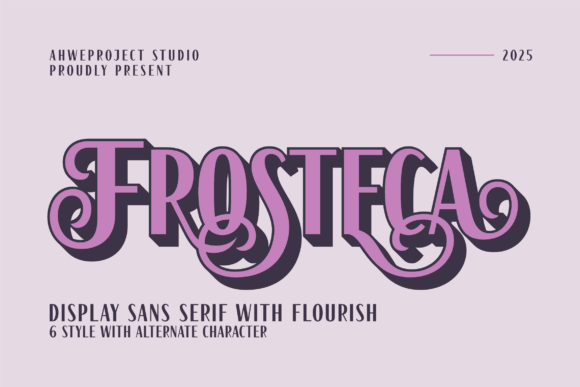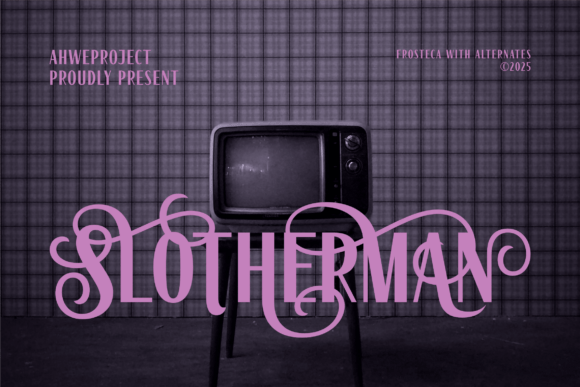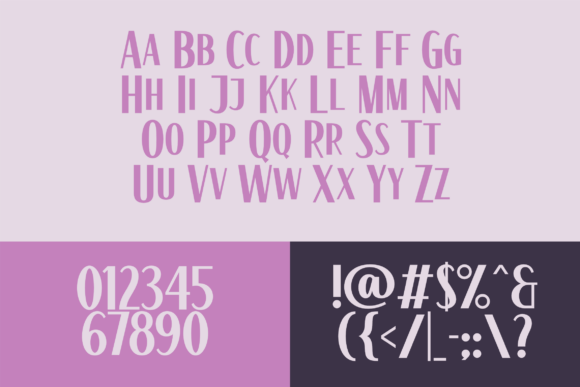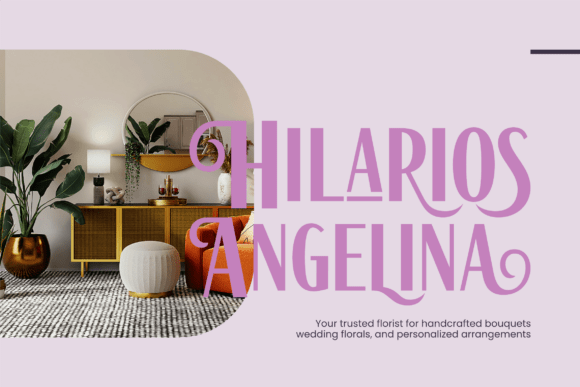
Frosteca Font: Elegant Display Font for Logos & Branding
About the Frosteca Font
Crafted with precision, the Frosteca Font is ready to bring your ideas to life. Frosteca is a bold and artistic display font that combines clean sans serif structure with beautiful flourish alternates. Designed to make your typography stand out, Frosteca is perfect for any design that needs a touch of elegance and creativity.
This font is ideal for logos, branding, headlines, packaging, posters, merchandise, and more. With 6 different styles and a wide range of alternate characters, you can easily mix and match to create unique and eye-catching designs.
Frosteca’s bold, artistic nature makes it particularly effective for headlines, logos, and short impactful phrases in branding materials or posters. Its flourish alternates add a touch of sophistication, ideal for premium products or luxury brands. However, its strong character and decorative elements make it less suitable for body text or UI elements where readability is paramount. Long blocks of Frosteca would be visually overwhelming and difficult to read.
To enhance Frosteca’s impact, consider pairing it with a clean sans-serif like Open Sans for body copy, creating a strong contrast between headline and supporting text. For a more playful feel, a rounded geometric sans-serif such as Poppins could be used. Alternatively, a classic serif font like Garamond would complement Frosteca’s elegance, providing a sophisticated and balanced design.
The overall personality of Frosteca is confident and stylish, lending itself to brands that project a sense of premium quality and creative energy. It’s a versatile font for creating impactful visual statements, but strategic pairing and careful placement are key to maximizing its effectiveness.